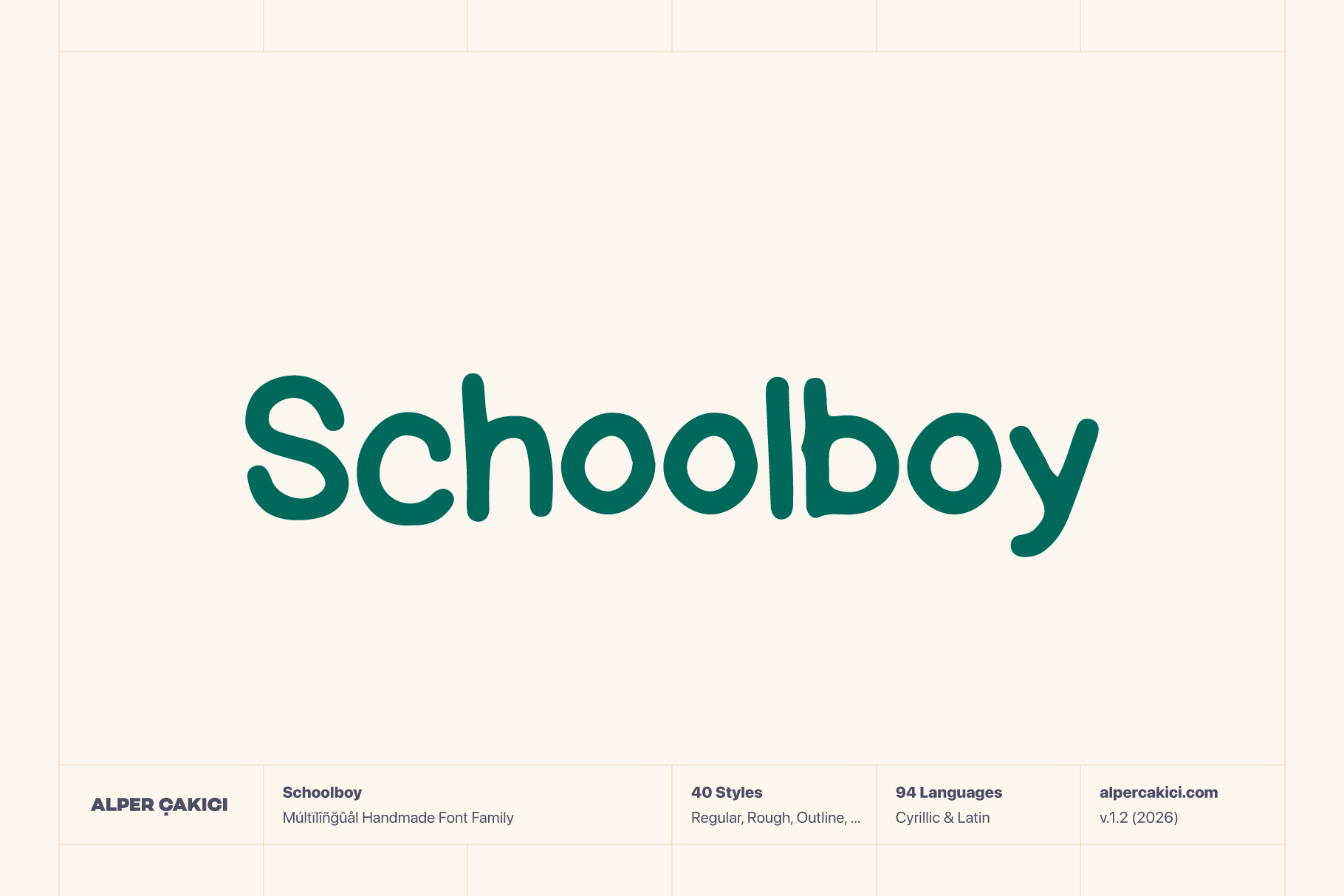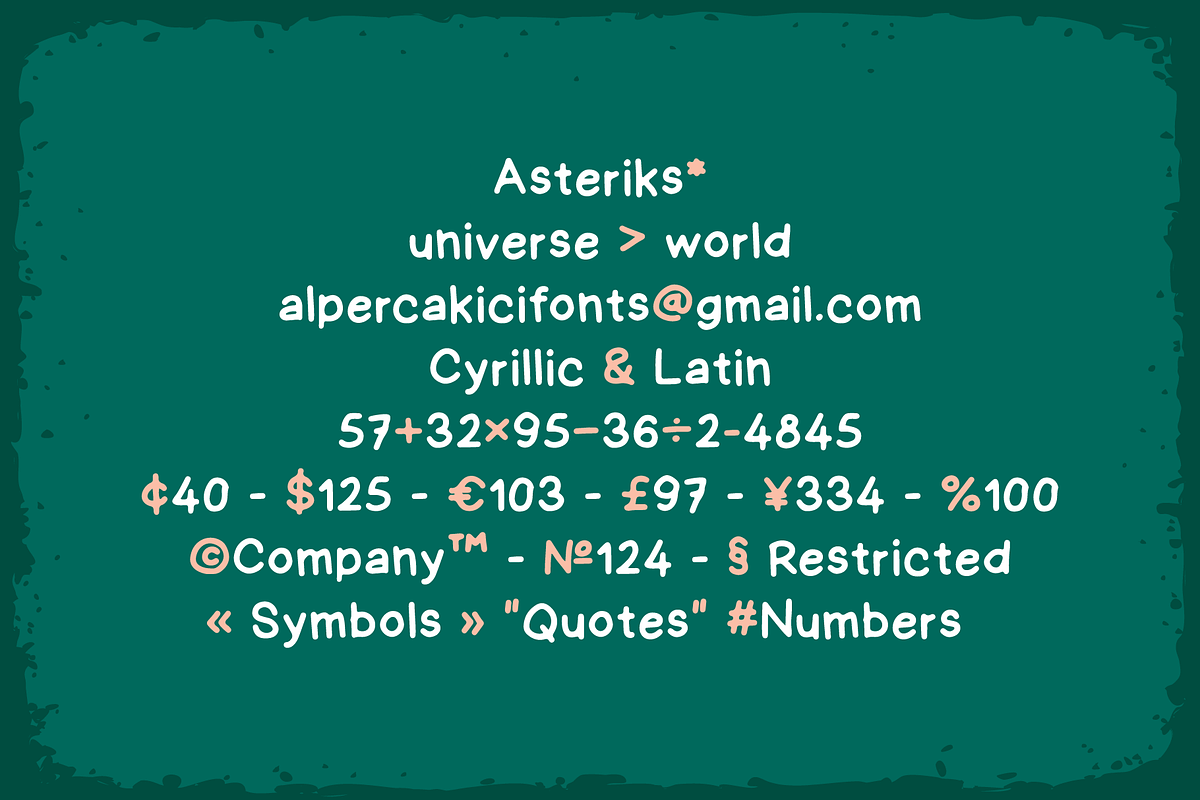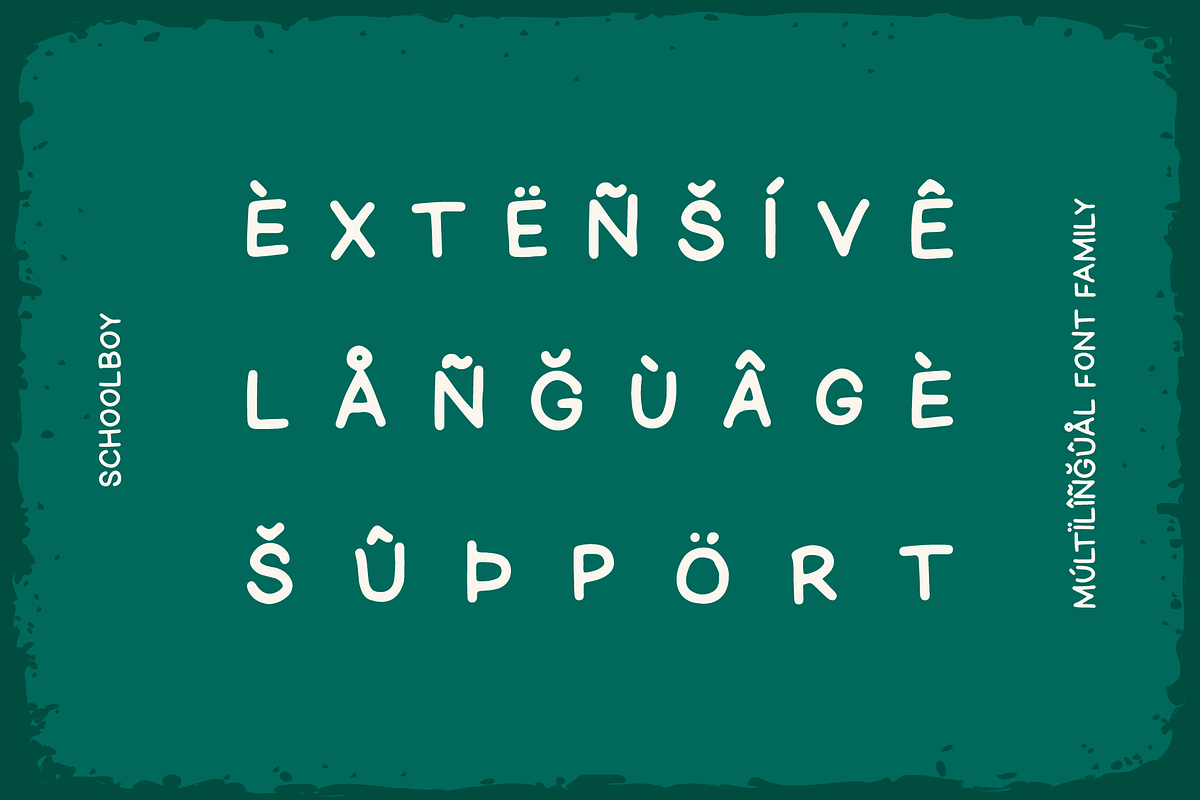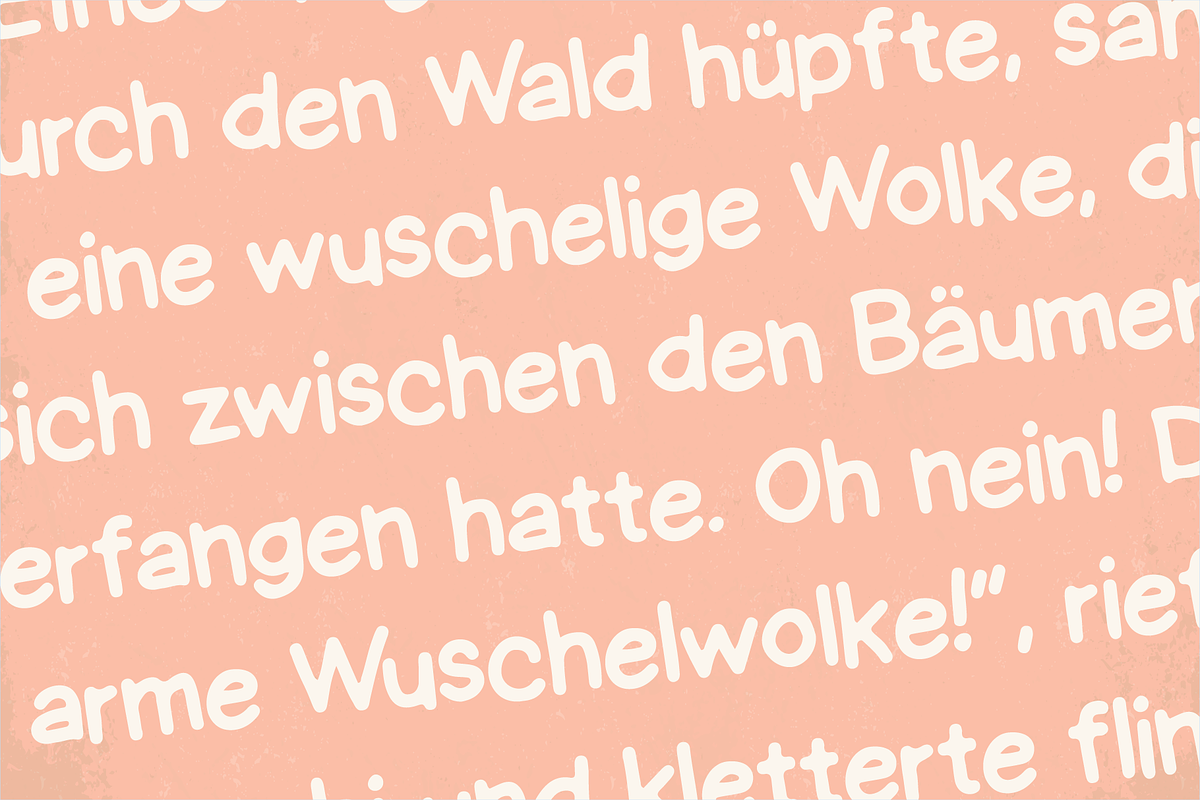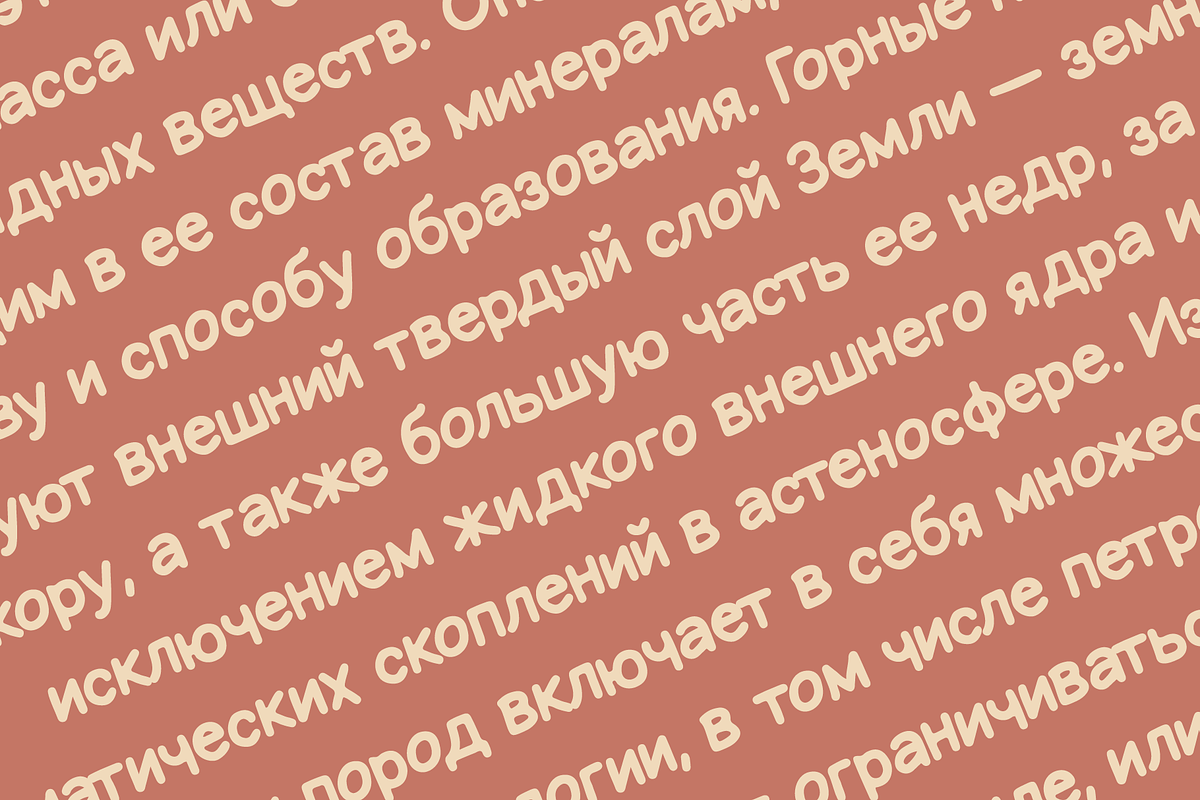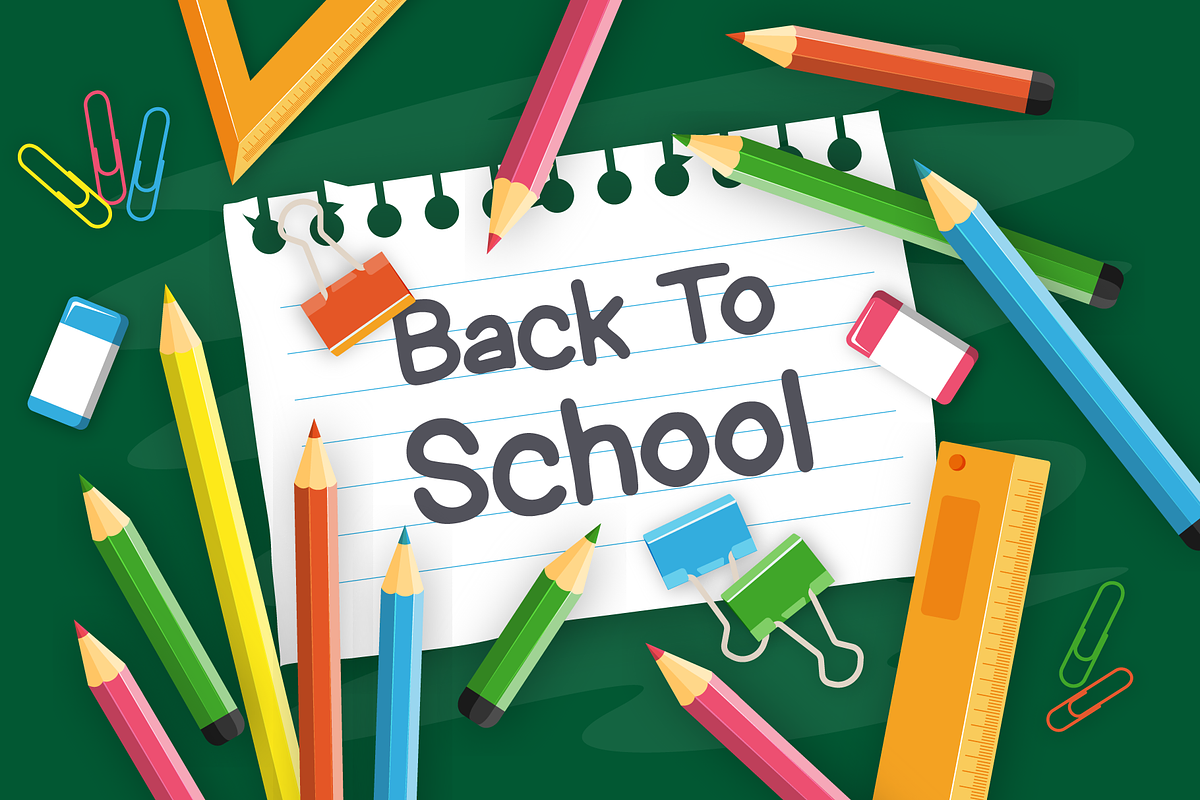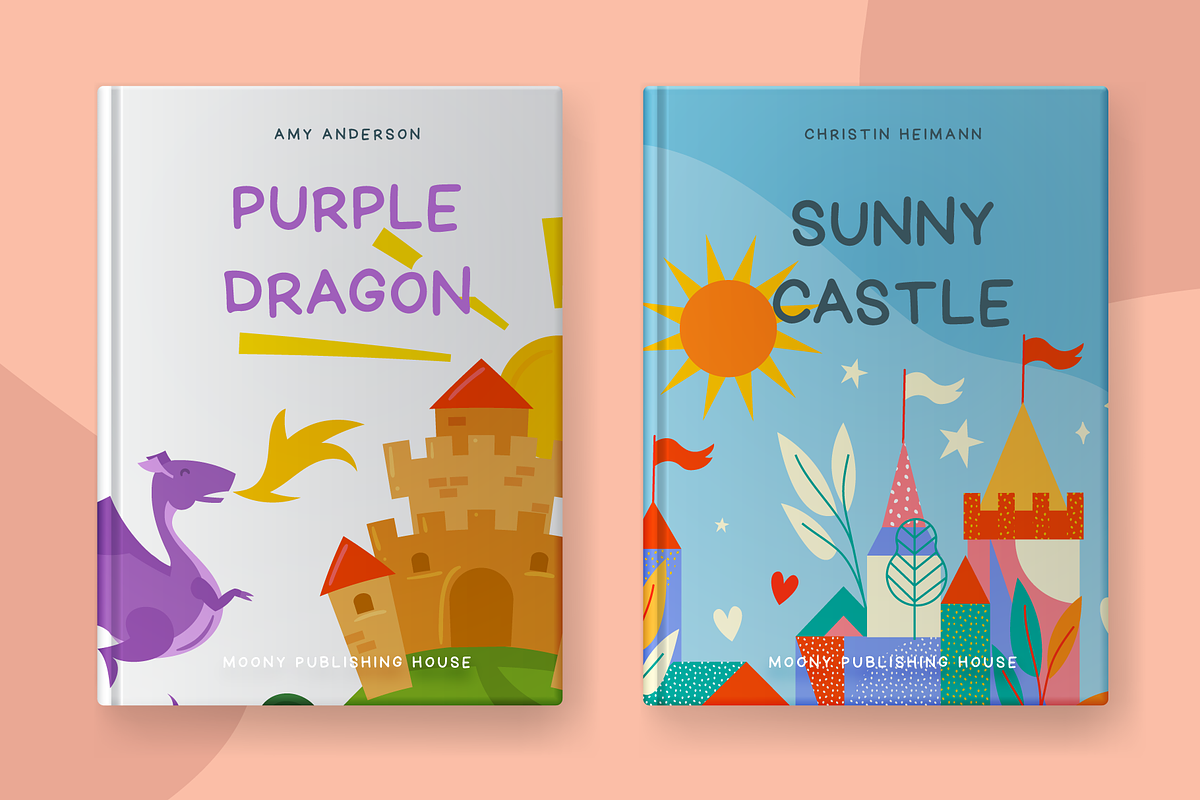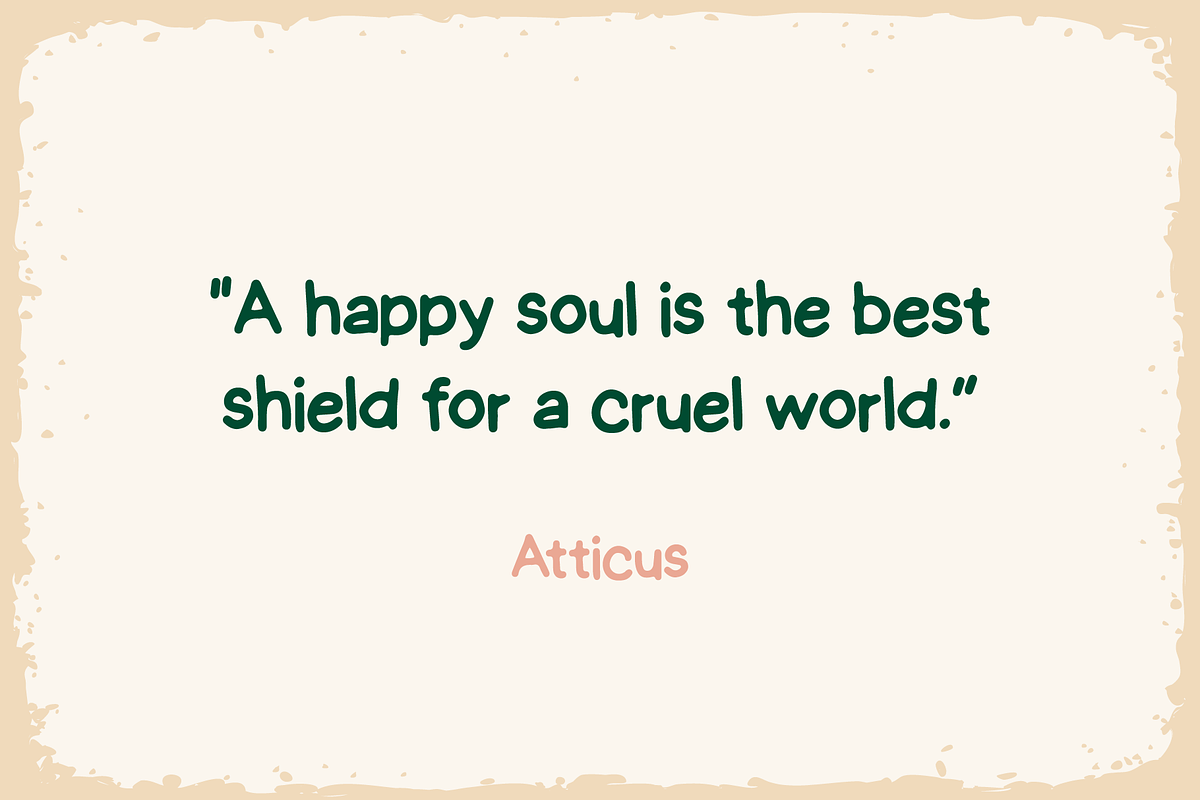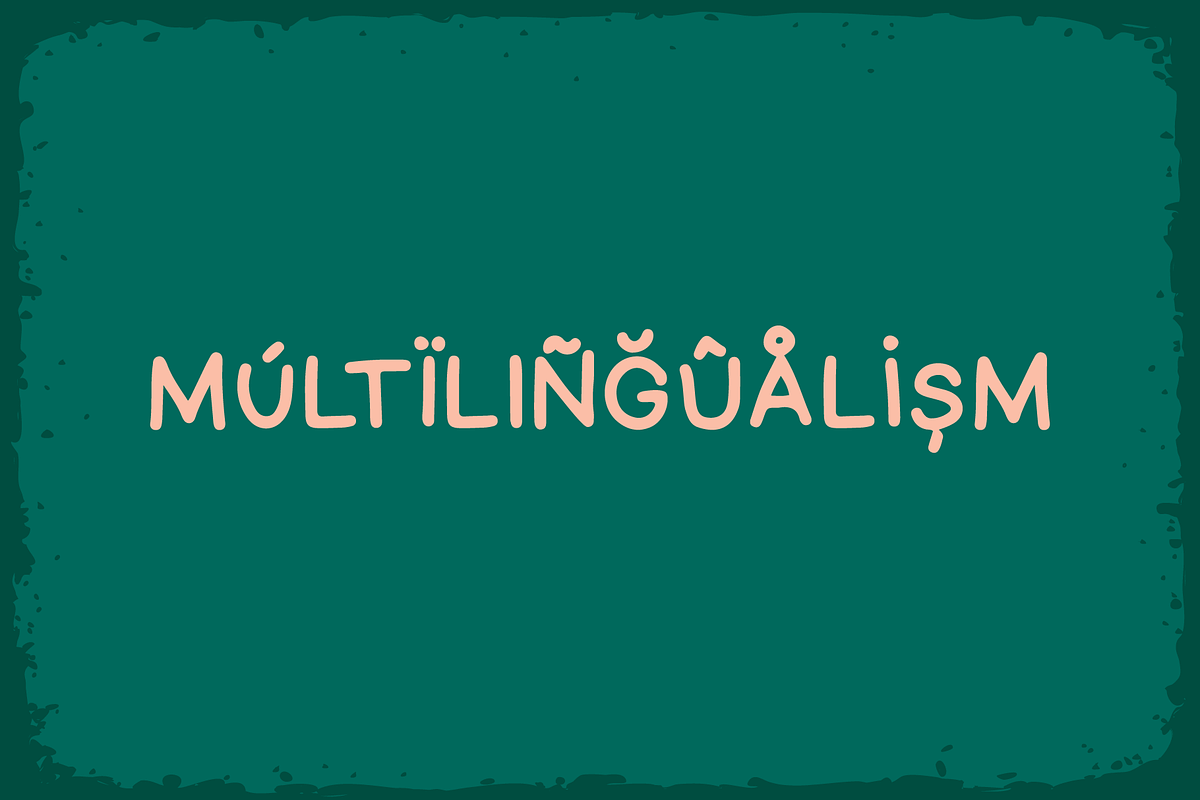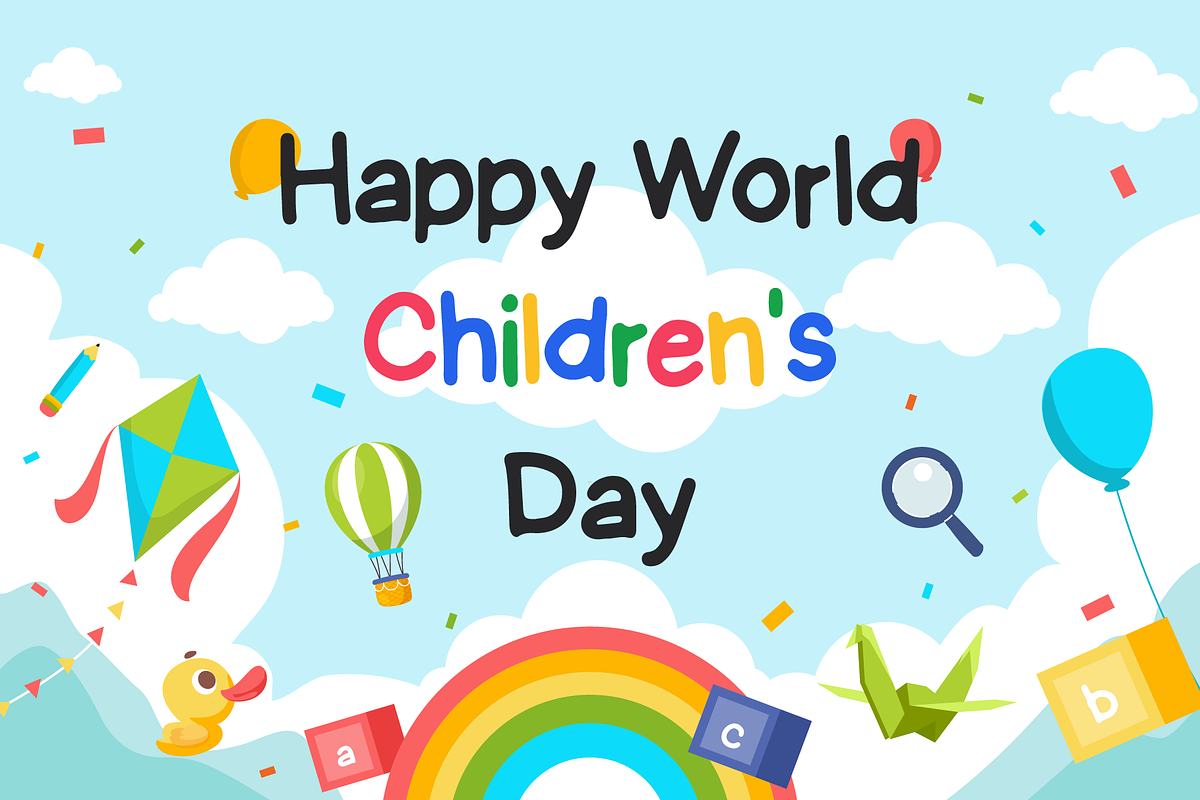
Schoolboy Playful Typeface
Schoolboy is a playful handwritten typeface inspired by classroom creativity, notebook doodles, chalkboard sketches, and youthful imagination. It captures the authentic feel of natural handwriting while remaining highly legible and versatile for both print and digital design.
Designed with expressive strokes and organic rhythm, Schoolboy brings warmth, personality, and charm to any project. Whether you're creating educational materials, children’s books, posters, branding, packaging, social media graphics, or merchandise, Schoolboy delivers a friendly and approachable tone.
With extensive language support covering 94 languages — including Afrikaans, Albanian, Basque, Catalan, Danish, English, French, German, Indonesian, Irish, Italian, Kurdish, Malay, Norwegian, Portuguese, Romansh, Russian, Scottish Gaelic, Somali, Spanish, Swahili, Swedish, Walloon, Xhosa, Zulu, and many more — Schoolboy is built for global creativity.
With over 40 font files, this family allows you to mix textures and layers to create bold typographic compositions, realistic chalk effects, pencil-style headlines, rough brush lettering, or playful classroom-inspired designs.
Schoolboy combines authenticity, flexibility, and charm — making it a must-have handwritten font family for designers who want personality without sacrificing readability.